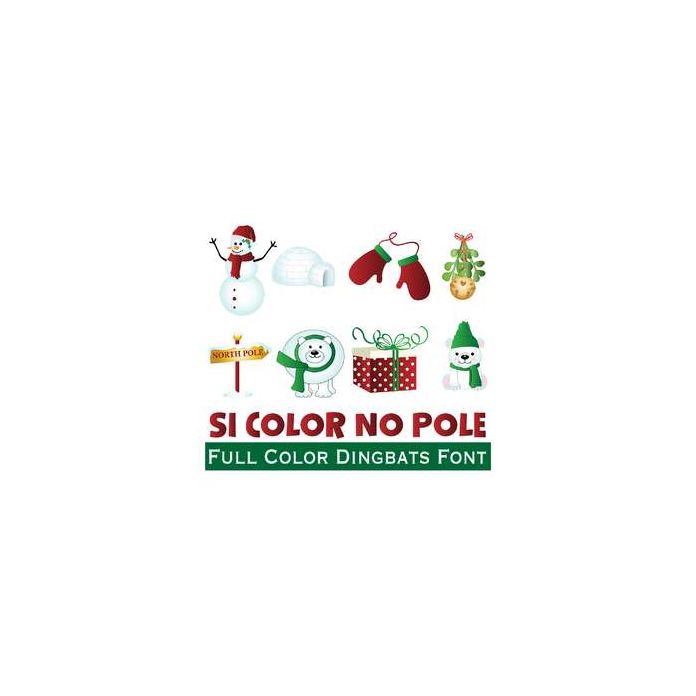
si color no pole dingbats font
Each full-color dingbats font has 26 elements to use for scrapbooking, planner stickers, heat press, tattoo paper, cards, as framed prints, posters, flyers - so much.